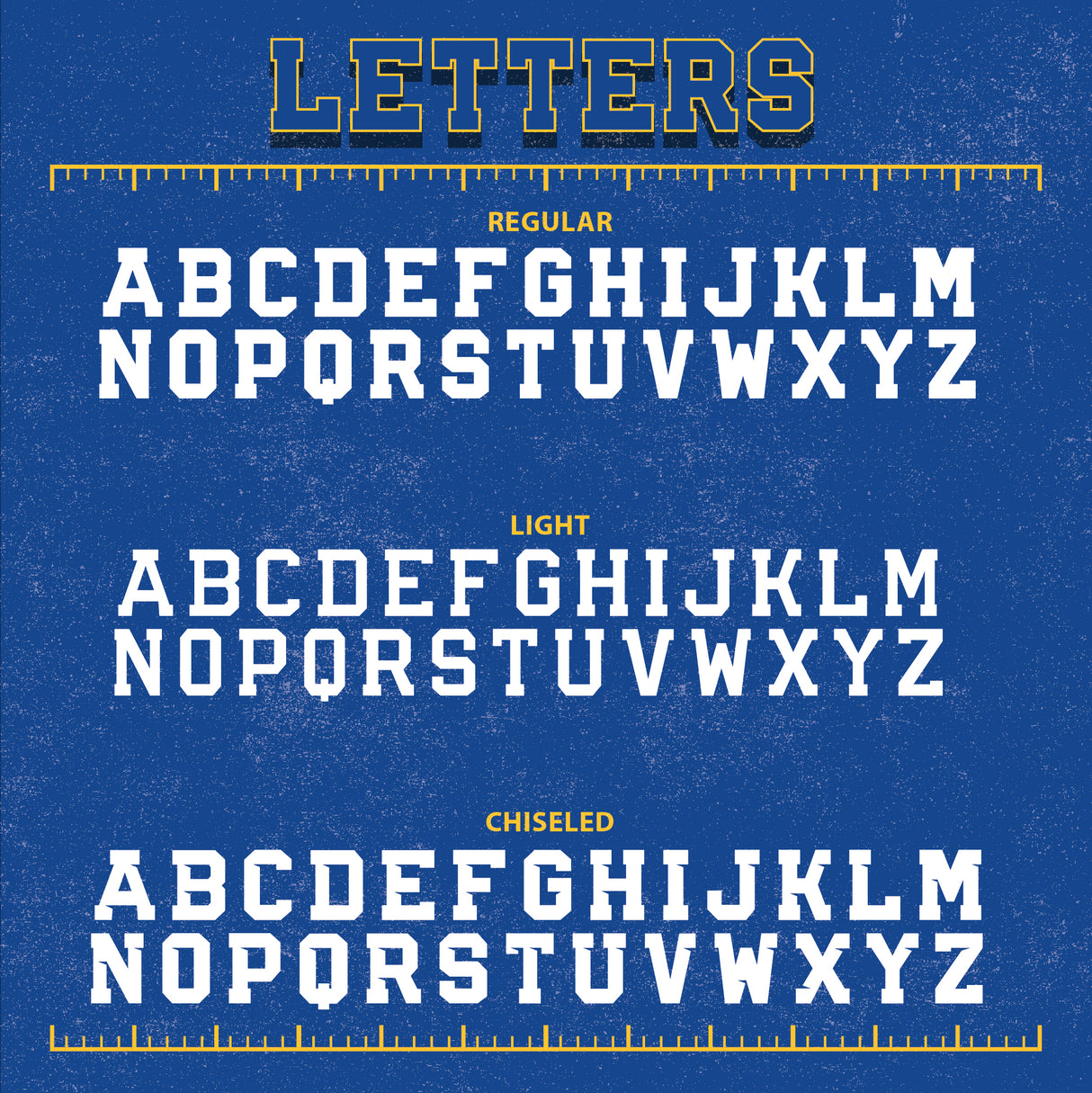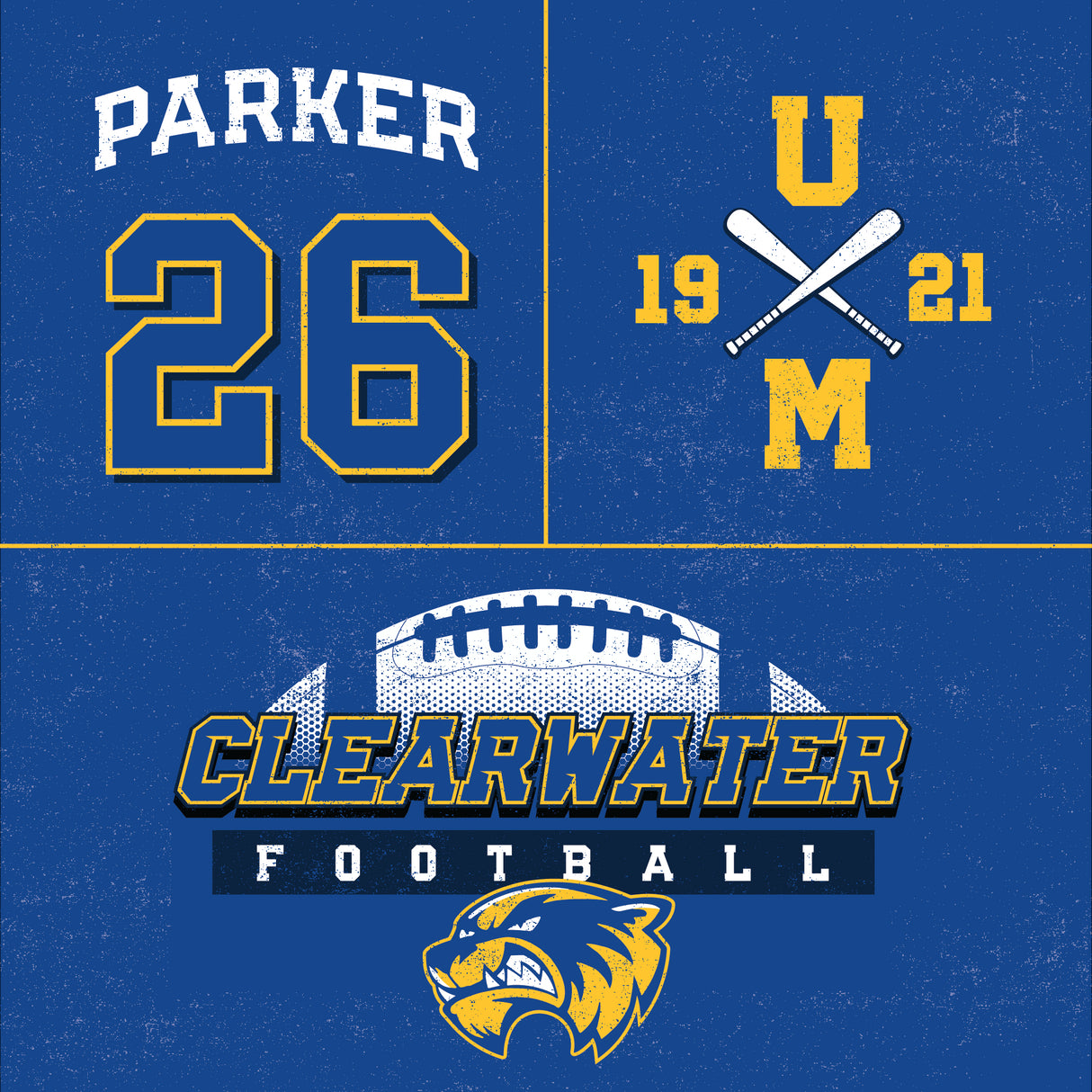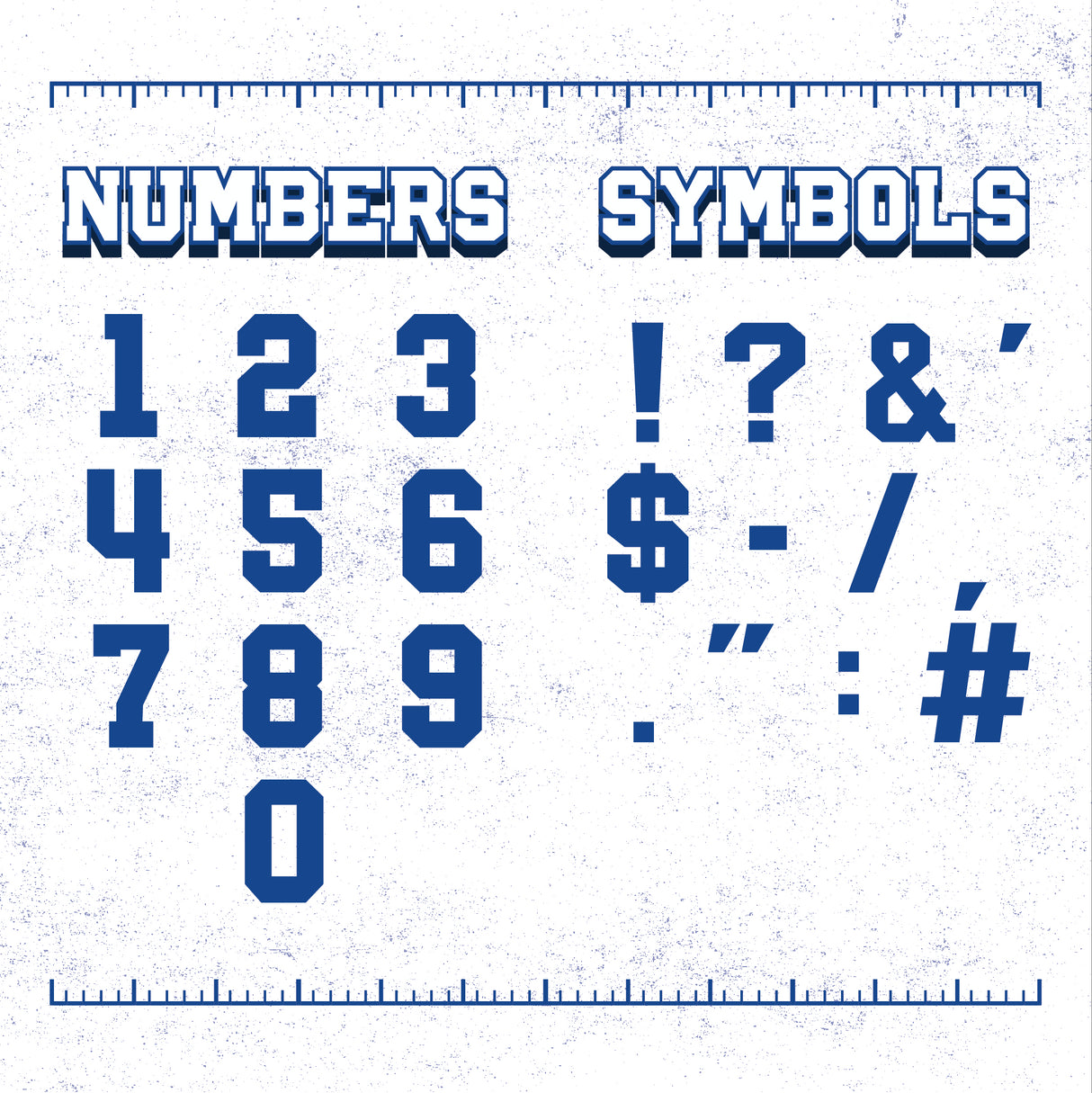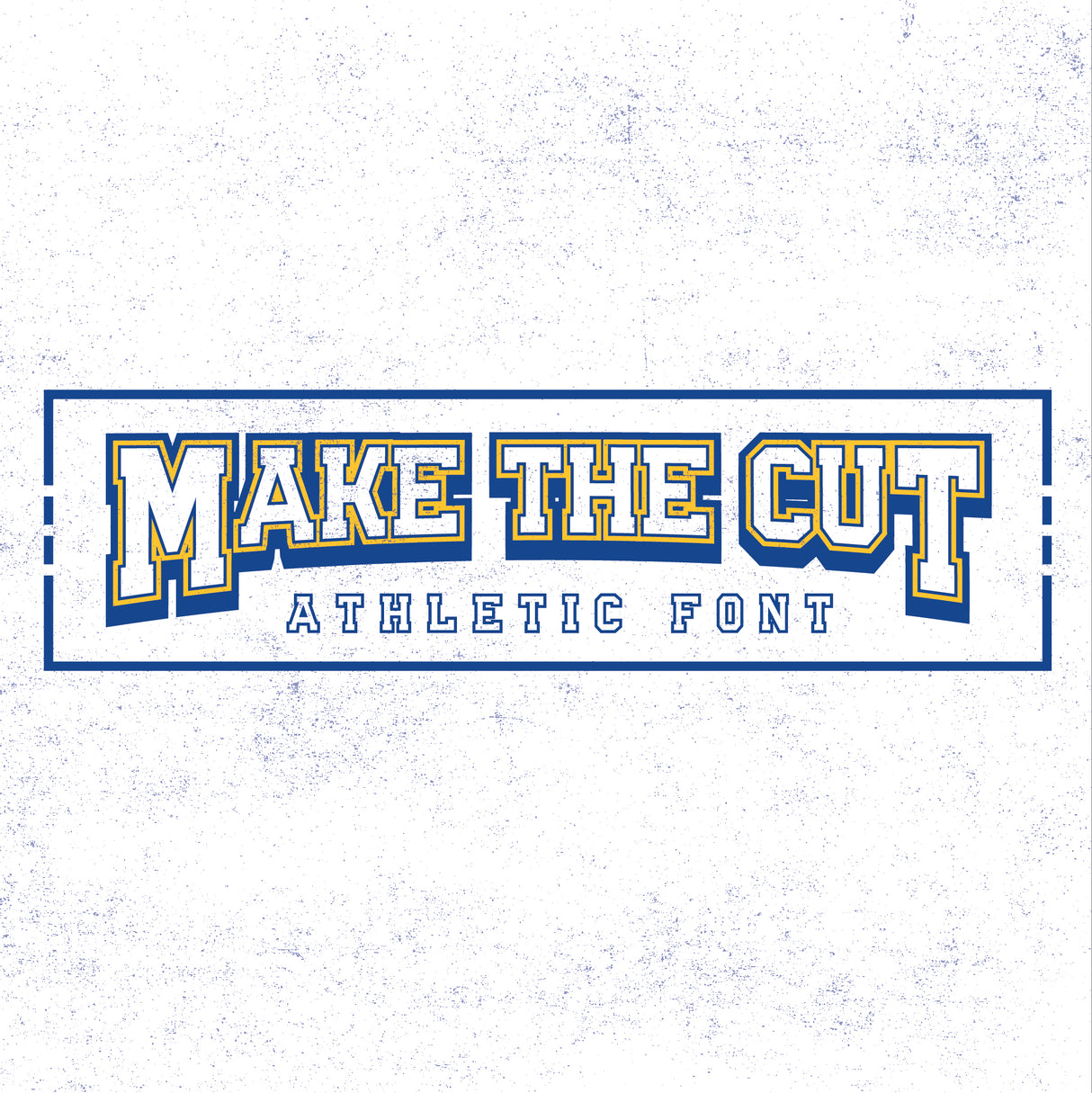
Make the Cut Font (Download Only)
Looking for an A-list font to take prints further? Add some star-power to your designs with the Make the Cut Font. Chiseled lines and square corners means this athletic font works overtime for your needs. With three stylistic options, you can create the perfect varsity font that's sure to take your art to the big league.
• Includes three styles: regular, light, and chiseled
• All letters, numbers, and symbols are included